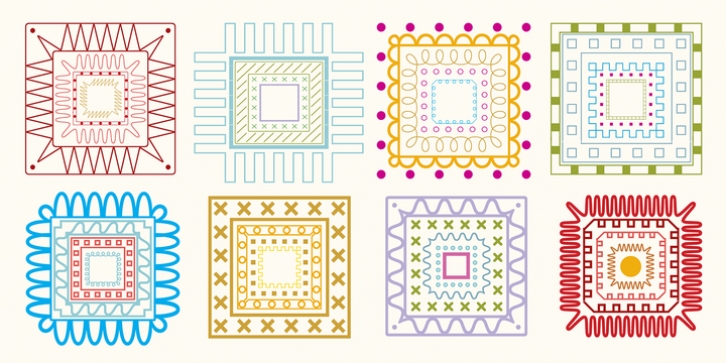
TXT101 was designed by Carolina de Bartolo and published by 101 Editions. TXT101 contains 4 styles and family package options.
TXT101 is a fresh, friendly typeface for mock text and borders. As a retro-cool digital successor to the pencil marks that were hand-drawn as placeholder text in the analog era, TXT101 includes 52 styles, from Arch to Zigzag, with a couple of loops, several slants, and a swell set of waves. If your final copy is TBD, use TXT101 to mock up roman, bold, italic or light. TXT101 looks GR8 and is EZ to set.
BWTM! Corner pieces make TXT101 a complete and charming bordering typeface. All patterns come in four weights, so you can make frames and borders for everything from little labels to big broadsides. Corners (north, south, east, west) are TTLY a snap to select from their own stylistic sets.
DIY: MIX & MATCH TO CREATE COOL PATTERNS! Many styles have aligning baselines, so glyphs will connect. Single- and double-line variations abound, and you can combine weights (light, regular, bold, black) as well as styles. BTW, feel free to insert word spaces or leave them out.
· TXT Light
· TXT
· TXT Bold
· TXT Black